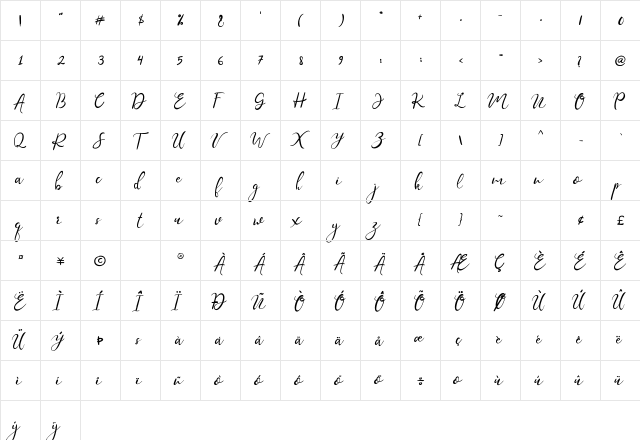
William Regular
| Designer | David Kasidi |
Design Context for William Typeface
William is a composed and adaptable typeface that performs quietly and consistently across a wide range of design contexts.